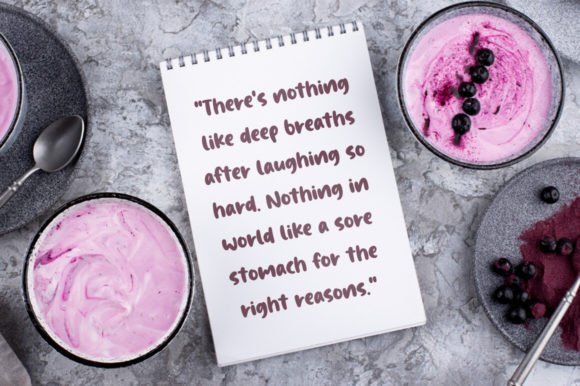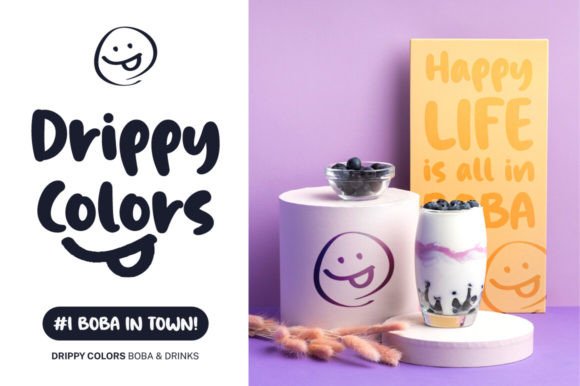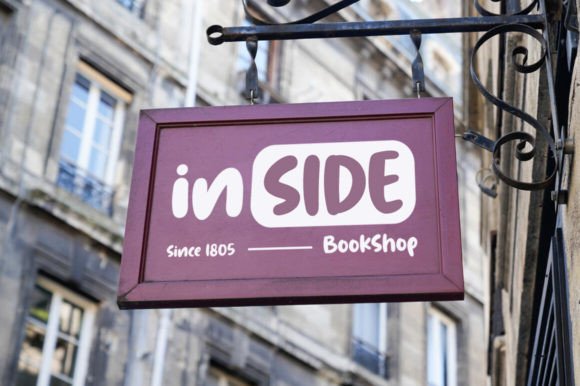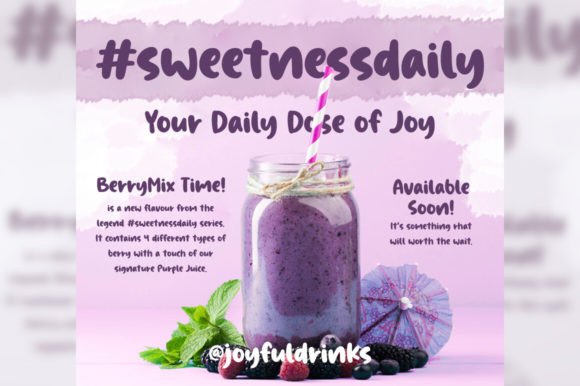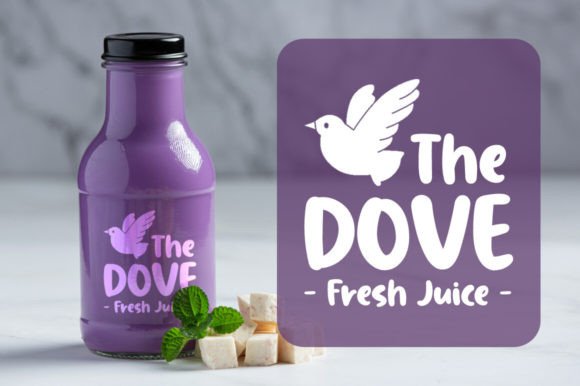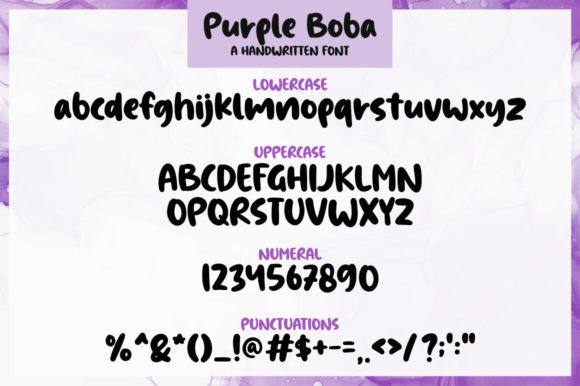
Introduction to Purple Boba Font
Purple Boba is a delicate and simple-lettered handwritten font, perfect for all the chalkboard quotes and teaching materials you wish to create.
Its authentic look will add a personal and realistic feel to your designs .
Key Features of Purple Boba Font
Why Choose Purple Boba Font?
Purple Boba Font offers exceptional quality and versatility, making it a valuable addition to your design toolkit. Whether you’re creating for personal projects or commercial use, Purple Boba Font delivers professional results.